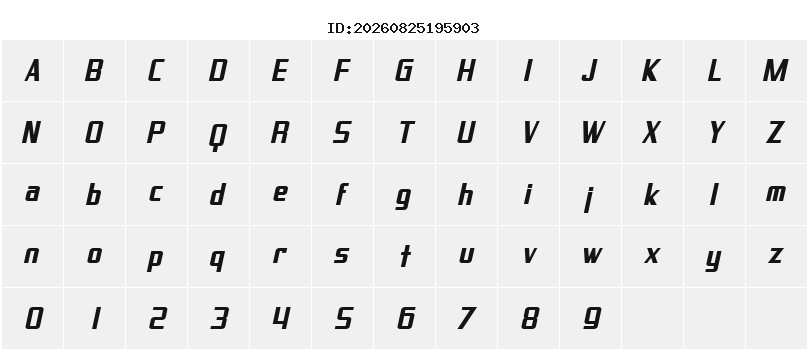
SF Proverbial Gothic Preview
• Font Name: SF Proverbial Gothic
• Font Style: Bold Oblique
• Font ID: ShyFontsTypeFoundry: SF Proverbial Gothic Bold Oblique: 2000
• Full Font Name: SF Proverbial Gothic Bold Oblique
• PostScript Name: SFProverbialGothic-BoldOblique
• Designer: ShyFonts Type Foundry
• Description: SF Proverbial Gothic Bold Oblique is a trademark of the ShyFonts Type Foundry.
About SF Proverbial Gothic.ttf
SF Proverbial Gothic.ttf is a modern, elegant sans-serif font designed for ultimate readability and visual harmony. Perfect for branding, headlines, web design, and print materials.